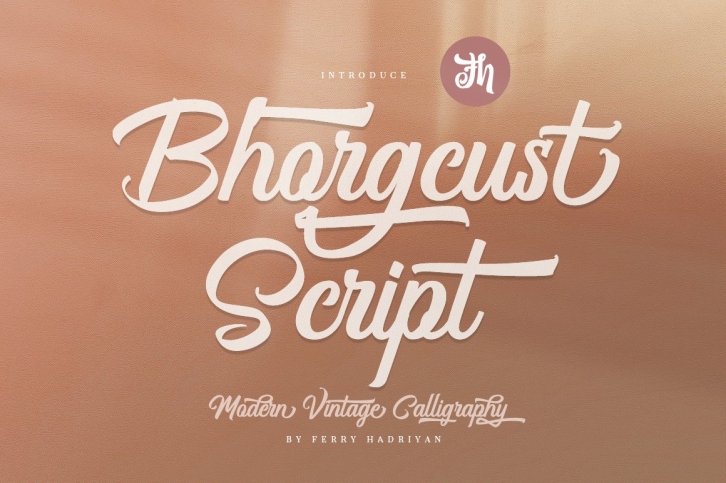
Bhorgcust is a gorgeous font that was realeased on March 21, 2021. The font can be used in many style contexts and design environments. Perfect for invitations, magazines, websites, logos, and more! It was designed by feydesign and the file size is 3.53 MB. Thanks for checking out this font!